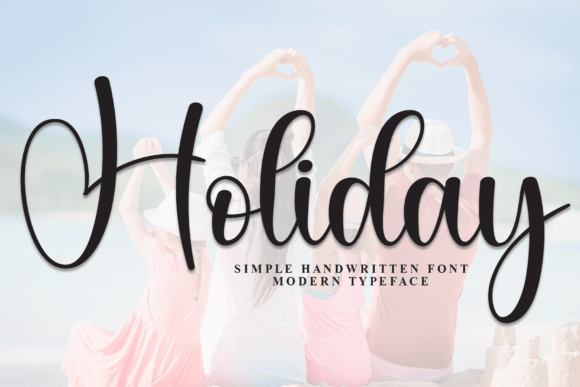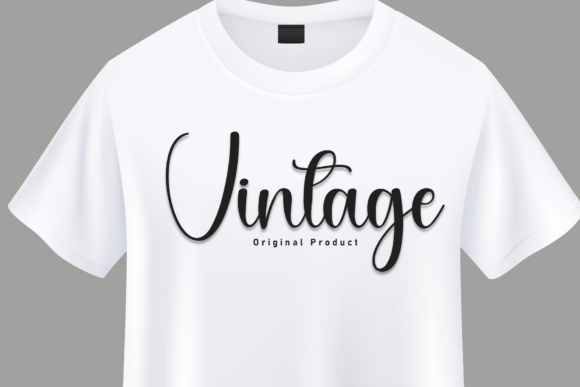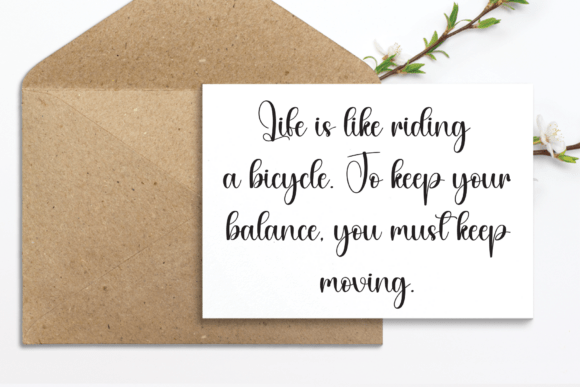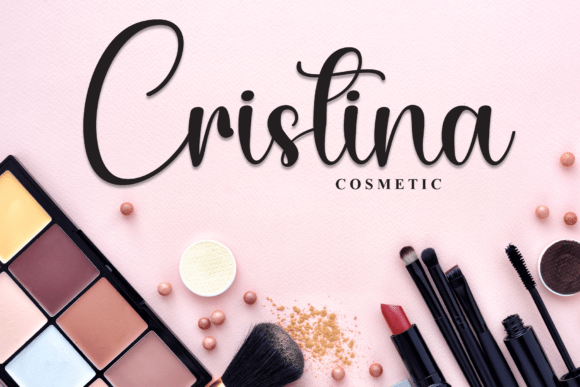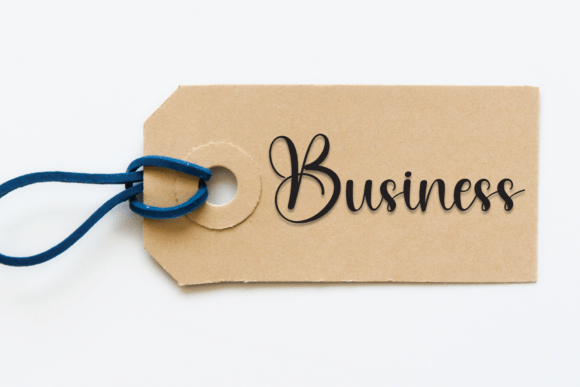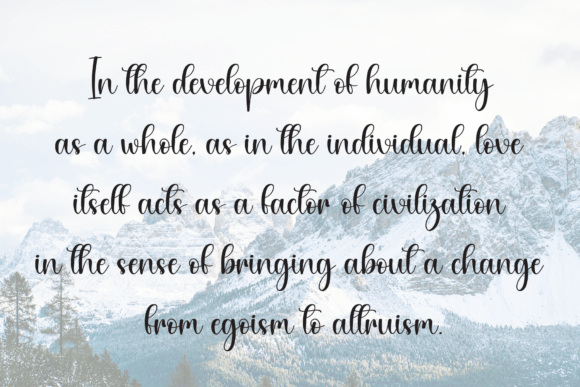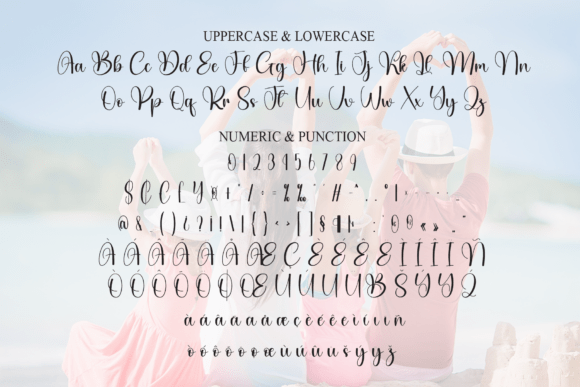
The Perfect Script: Discovering the Magic of Holiday Font
As a designer, have you ever found yourself pouring over a blank canvas, searching for the perfect font to bring your vision to life? I know I have. It’s that moment when the cursor blinks, and the possibilities feel endless. For me, it’s always been about capturing the essence of the subject, and for many projects, that means incorporating a touch of elegance and charm.
Enter Holiday Font, a stylish handwritten script that effortlessly exudes refinement and sophistication. With its fluid, flowing strokes, this font is the perfect addition to any design, whether it’s branding, invitations, or stationery. Its smooth curves and natural flow create a timeless look that’s sure to leave a lasting impression.
For designers, Holiday Font is a valuable asset, offering a unique and personal touch that sets projects apart from the ordinary. Its versatility and timeless appeal make it an essential addition to any design toolkit, and its beauty lies in its ability to elevate even the simplest of designs to new heights.
Holiday Font Key Features
- Unique Characteristics: This font features a festive and playful design, perfect for holiday-themed projects, with intricate details and ornaments.
- Customization Options: The font includes various ornaments and decorations, allowing designers to customize their designs with unique elements.
Holiday Font Review
Overall, I was quite excited to try out the Holiday Font, as its name suggests a fun and festive vibe. Here’s my honest review:
- The font’s playful and whimsical feel is perfect for holiday-themed designs, like Christmas cards or New Year’s Eve invitations.
- The bold and cursive lines add a nice touch of elegance and sophistication.
- The font is highly customizable, allowing you to adjust the size, color, and style to fit your design needs.
- The font may be too loud or overwhelming for certain designs, especially those with a more minimalist or modern aesthetic.
- The font’s character set is limited, which may cause issues if you need to use certain special characters or accents.
- The font may not be suitable for body text or large blocks of text, as it can be difficult to read at certain sizes.
While the Holiday Font has its limitations, it’s still a great choice for holiday-themed designs or projects that require a playful and festive feel. With some careful planning and customization, you can create beautiful and eye-catching designs using this font. Just be mindful of its limitations and use it wisely.
Tips for Getting the Most Out of Holiday Font
To get the most out of Holiday Font, use it to add a festive touch to your designs, such as:
- Creating holiday-themed graphics and posters.
- Designing holiday cards and invitations.
- Adding a festive touch to your website or social media graphics.
Alternatives to Holiday Font
Great Vibes is a modern, elegant script font that is perfect for adding a touch of sophistication to your designs. It features flowing lines and subtle flourishes, making it ideal for titles, headings, and quotes. When to use: For high-end branding, invitations, and special occasion designs.
Comparison to Holiday Font: Great Vibes has a more refined and polished look compared to Holiday Font, which can appear more playful and casual.
Carolyna Pro is a luxurious, handwritten font that exudes elegance and sophistication. It features intricate details and flourishes, making it perfect for high-end designs. When to use: For luxury branding, invitations, and special occasion designs.
Comparison to Holiday Font: Carolyna Pro has a more opulent and luxurious feel compared to Holiday Font, which can appear more casual and playful.